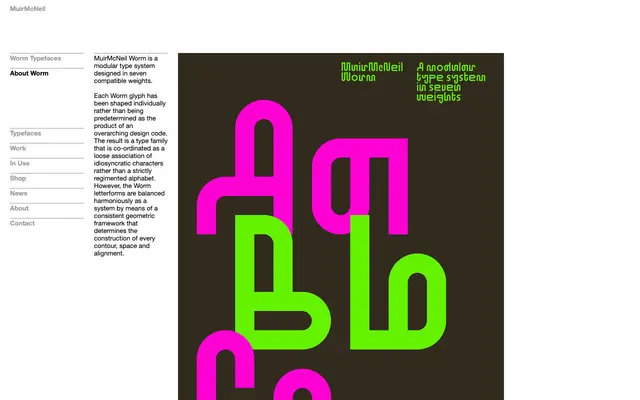
A seven-weight modular type system by MuirMcNeil in which individually shaped glyphs are designed to layer and interact across weights for print, screen and motion.
Rather than generating letterforms from a fixed design code, each glyph in Worm has been drawn individually within a consistent geometric framework that governs contours, spacing and alignment. The seven weights are calibrated to sit on top of one another, so outlines from different cuts can be combined to produce a range of visual effects. The result sits somewhere between a strictly systematic typeface and a loosely coordinated alphabet of idiosyncratic characters.
Worm is a modular type system built on a consistent geometric framework but with individually shaped glyphs; its layering system and idiosyncratic character construction place it firmly in the display category.